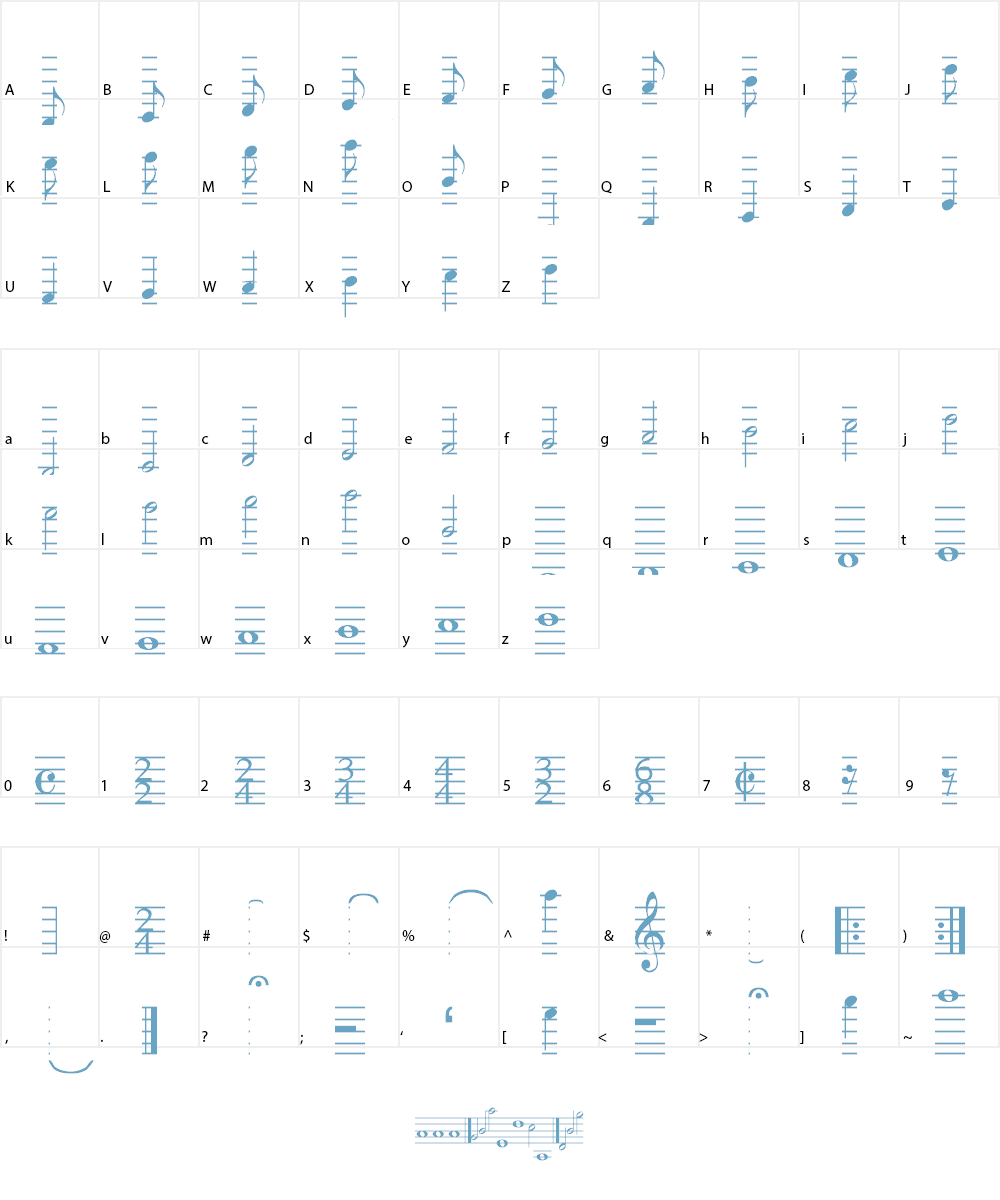
MusiQwik is a handy font for writing a line of singable music. It can depict clefs, key signatures, time signatures, measures, fermatas, and repeats. Notes range from two ledger lines below the staff, to one ledger line above it. This is the range typically used for ordinary songs and hymns. Whole, half, quarter, eighth, and sixteenth notes and rests may be depicted, with or without dots.